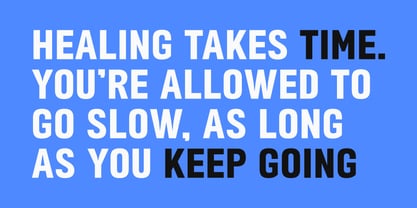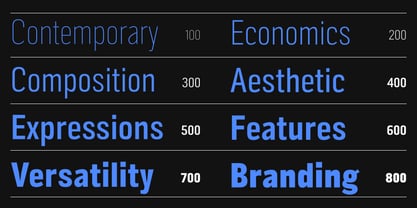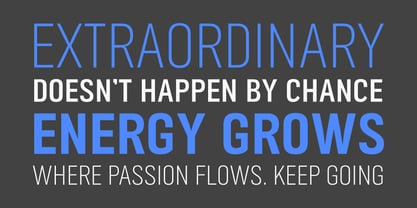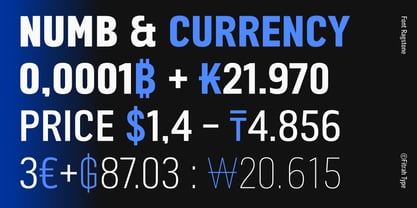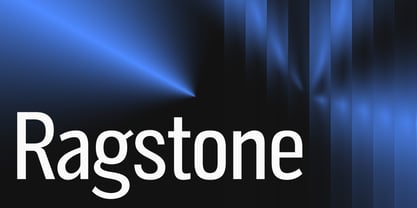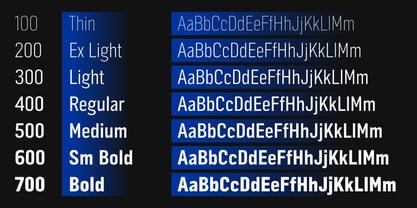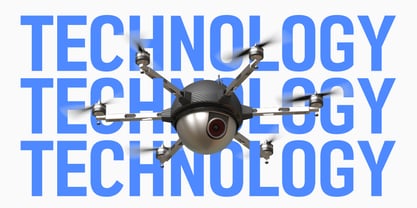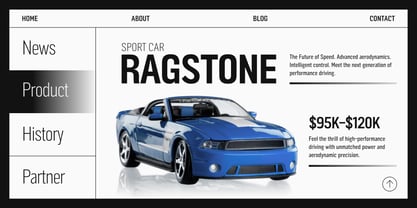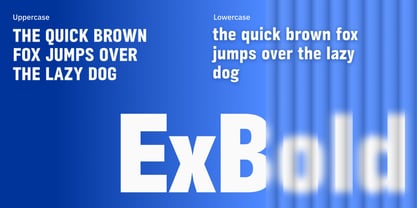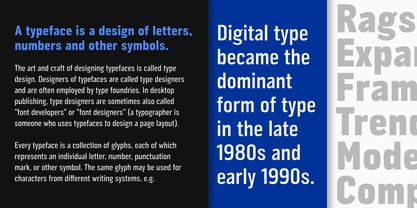
Ragstone
by Fitrah Type
The Ragstone Font Family was designed by Moch Fitrah Hidayat and published by Fitrah Type. Ragstone contains 9 styles and family package options.
Ragstone is a modern sans-serif typeface that blends strength with personality. Designed with subtle humanist details and balanced proportions, it offers a friendly yet professional tone — ideal for branding, editorial, interfaces, and everyday communication.
With 9 weights ranging from Thin to Black, Ragstone adapts effortlessly across visual hierarchies, whether you’re crafting bold headlines or clear, readable paragraphs. Its slightly organic shapes and steady rhythm make it a reliable choice for both print and digital design.